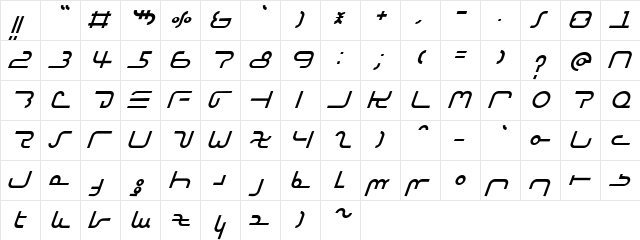
I2ArabiaConsole Regular Font Preview
I2ArabiaConsole Regular
I2ArabiaConsole Regular Font Details
Design Context for I2ArabiaConsole Typeface
I2ArabiaConsole is a composed and adaptable typeface that performs quietly and consistently across a wide range of design contexts.